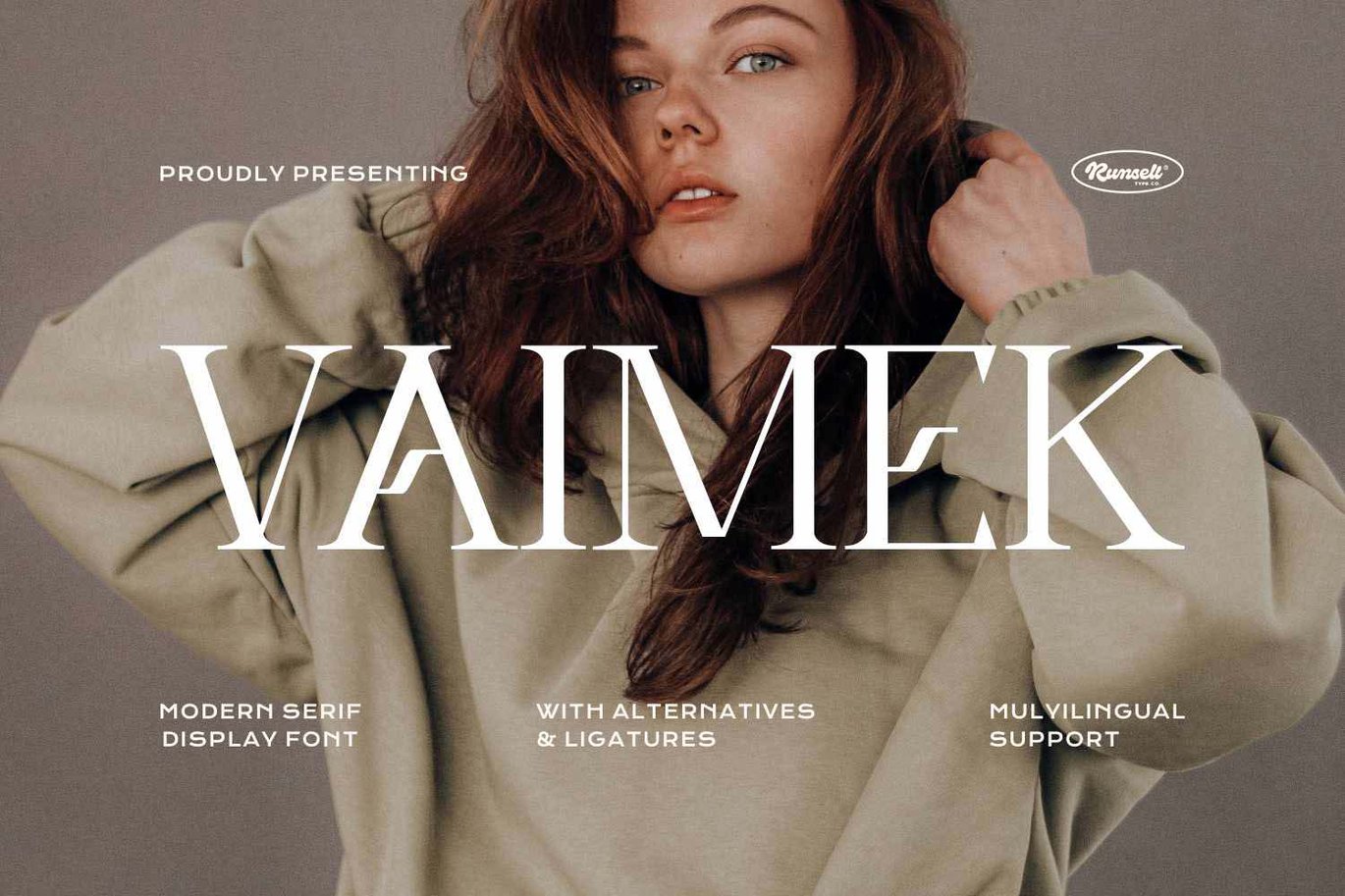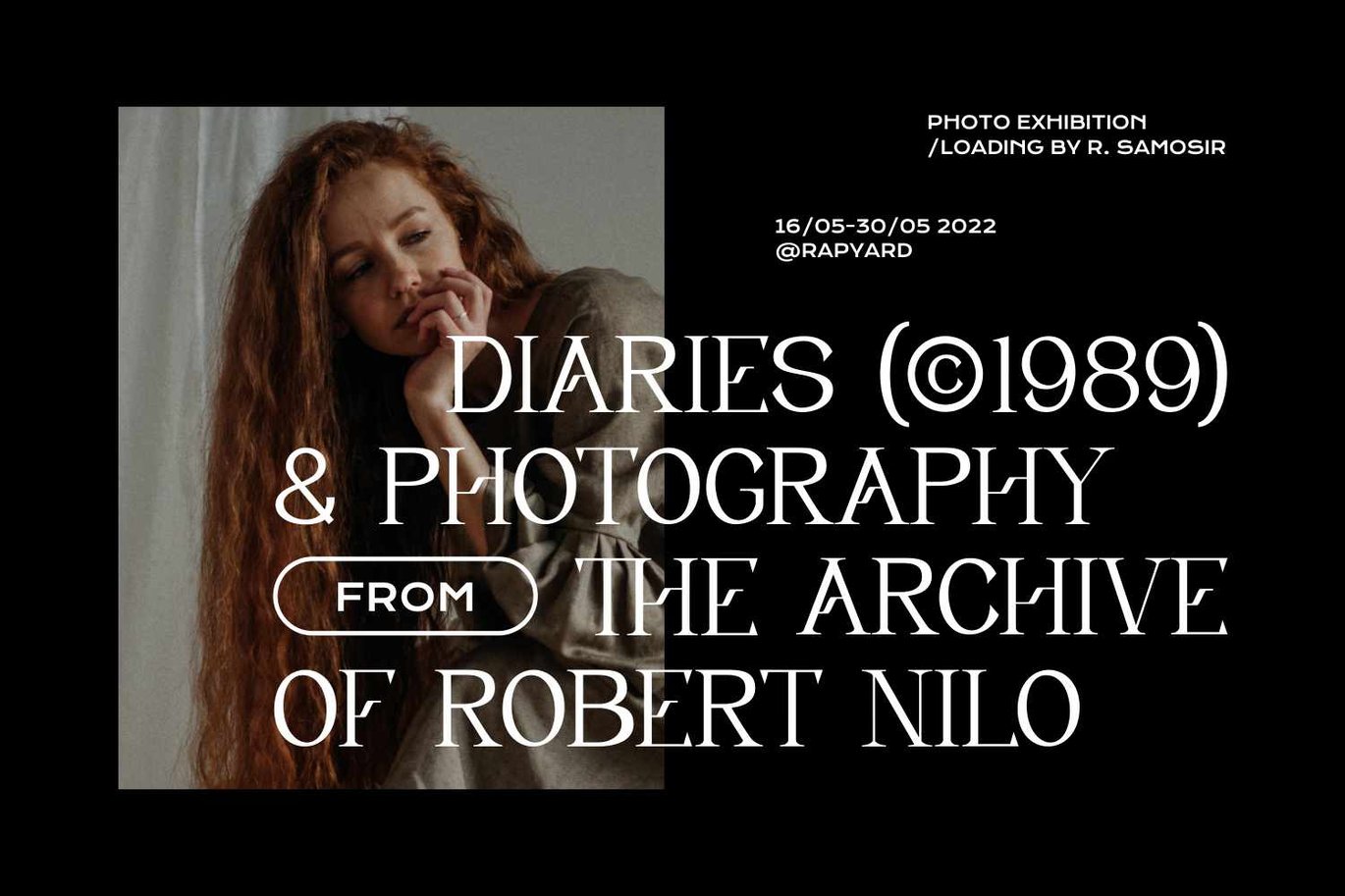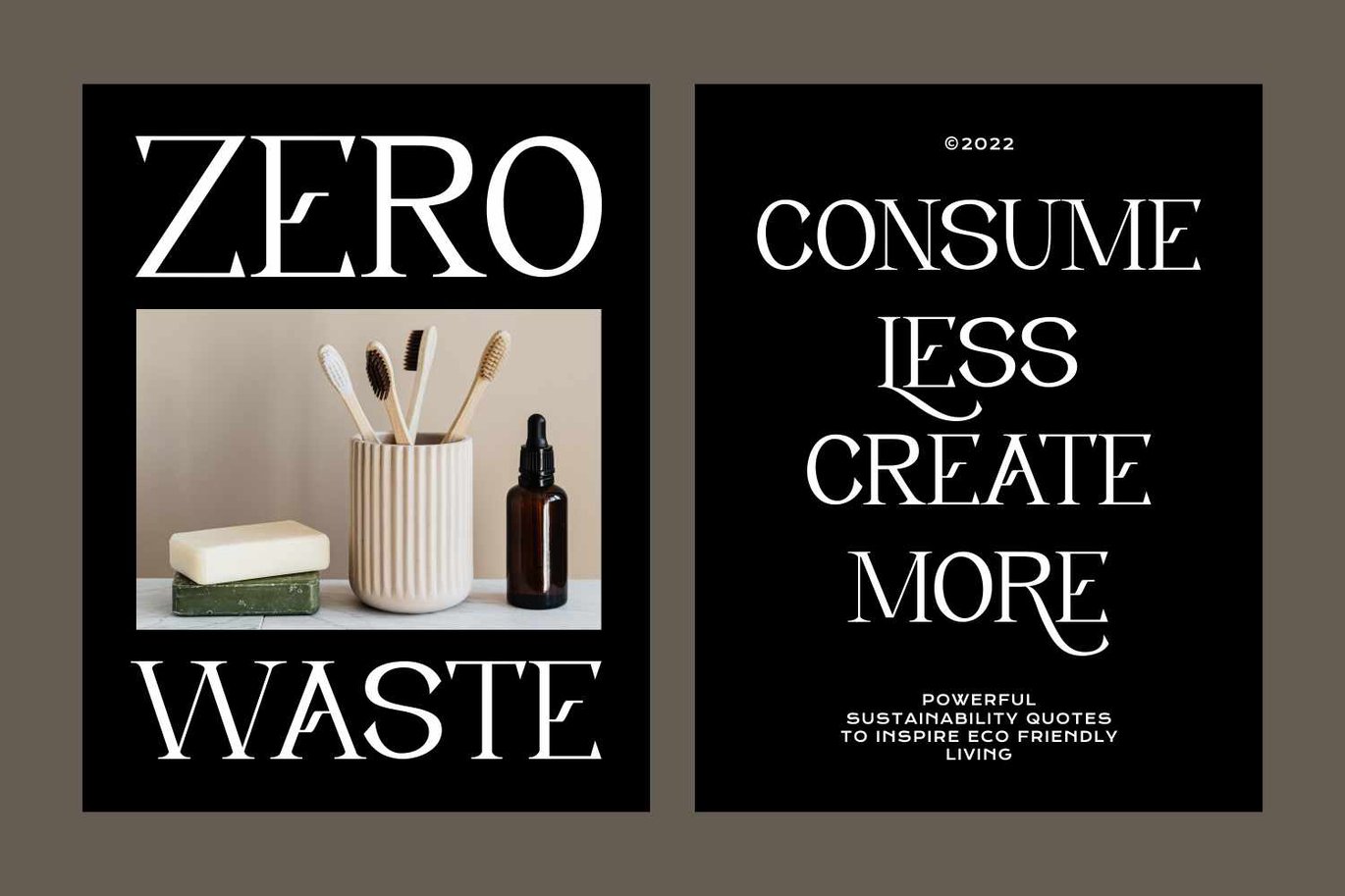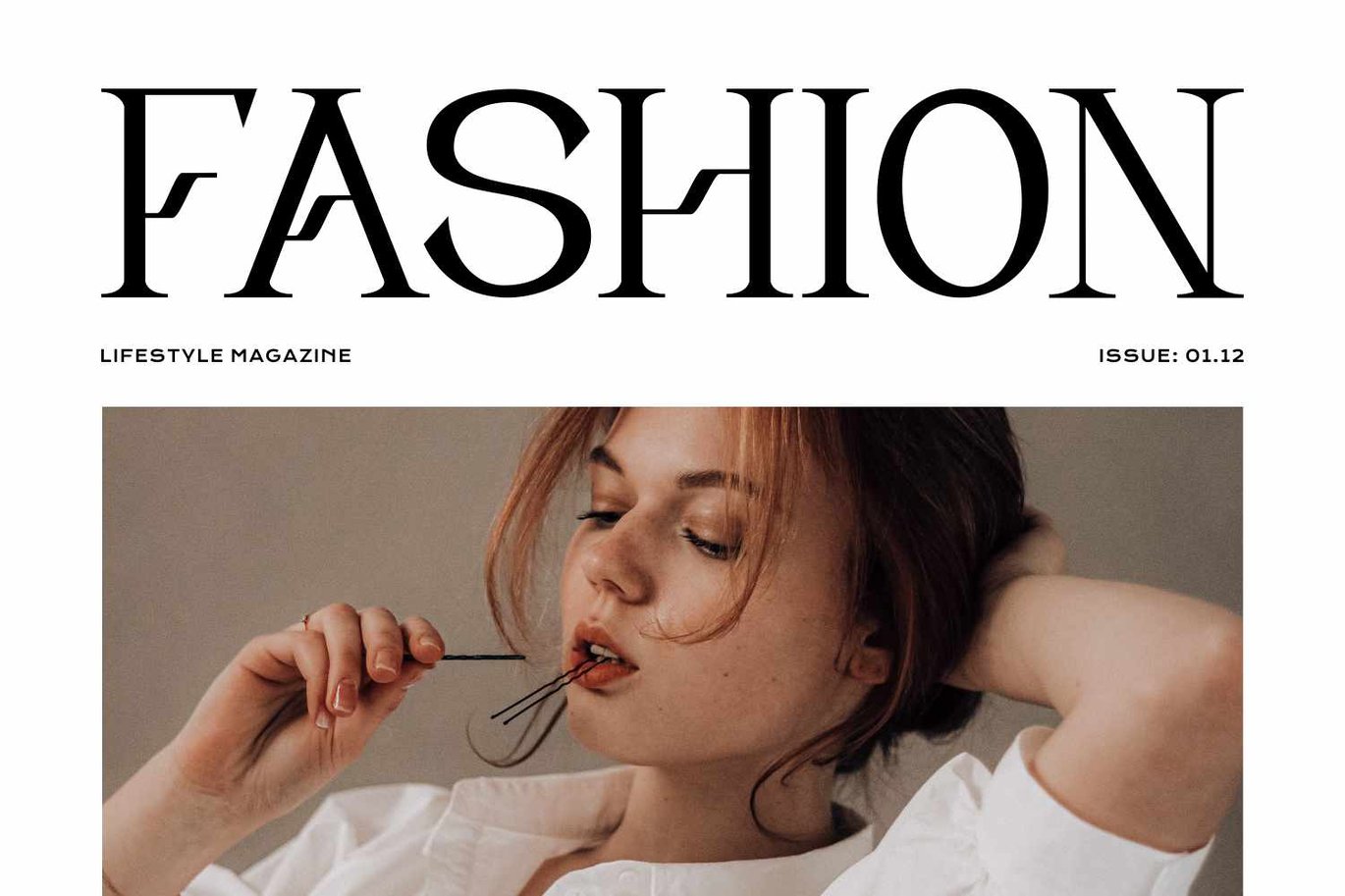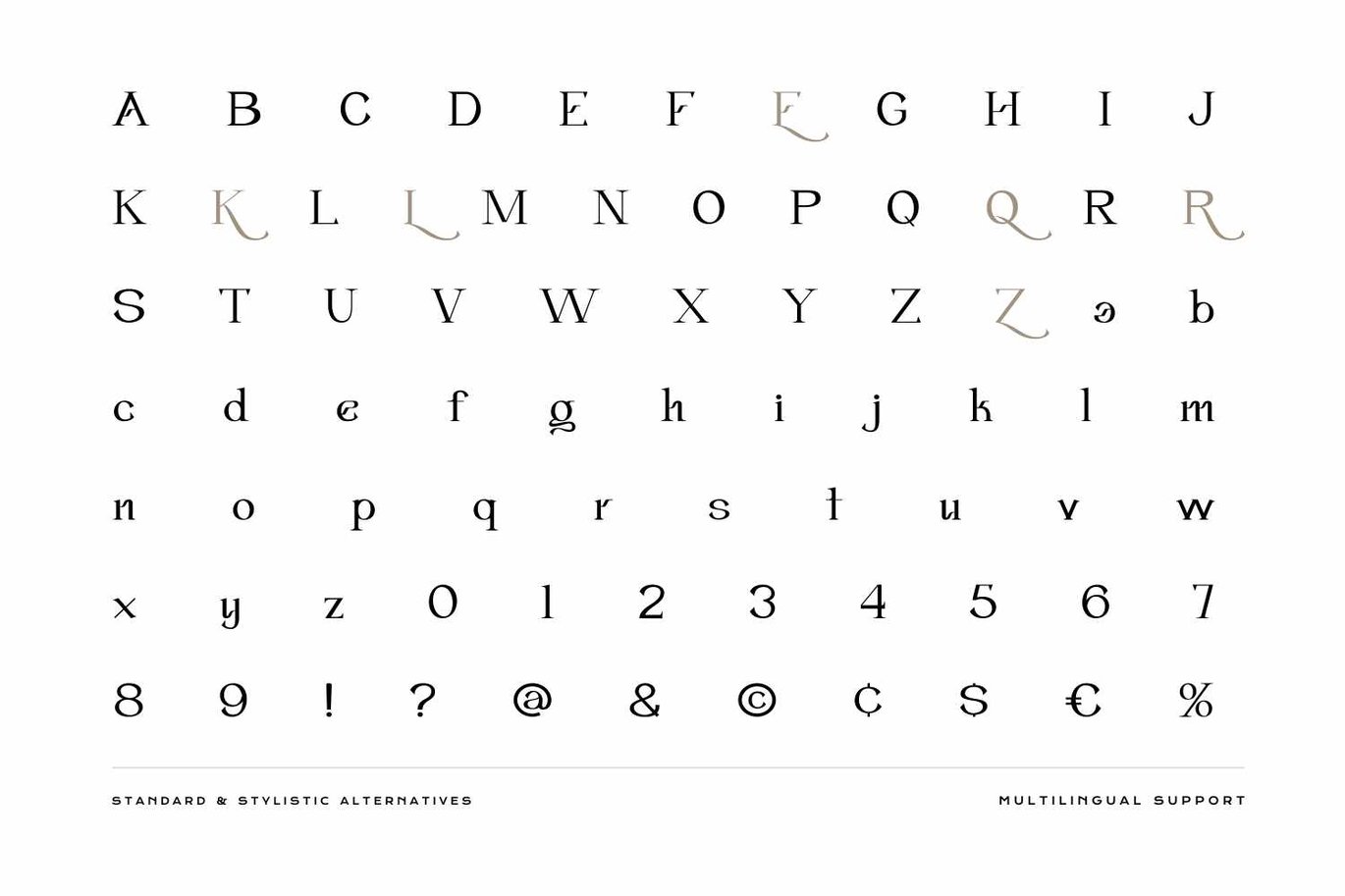
Vaimek – Modern Luxury Font
Presenting Vaimek Font is suitable branding, book, logo, magazine, fashion product, quotes, poster, headline, and etc. Our fonts have Uppercase & Lowercase, Numeral & Punctuation, Multilingual support and Opentype Features. For Amazing designs you can mix with other fonts as a complement.